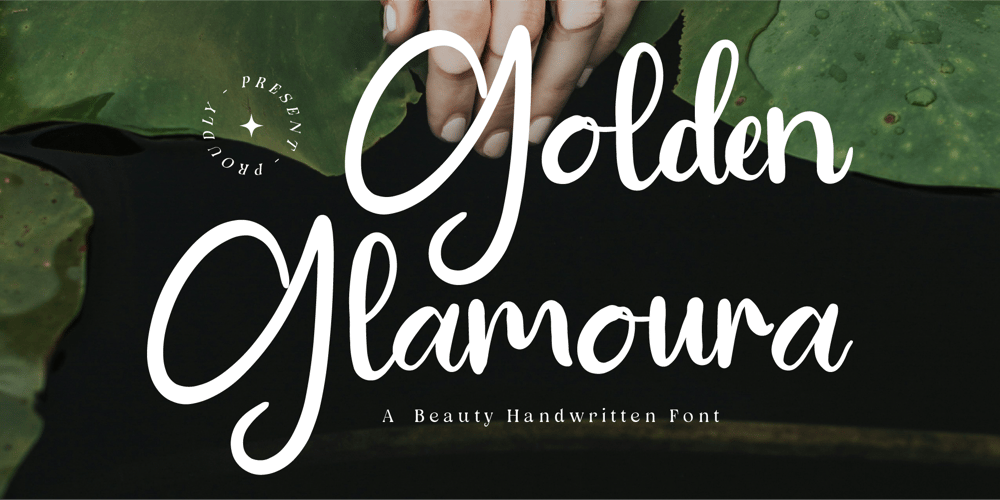
CF Golden Glamoura Font Family was designed by Gilang Mei Nugraha, Frederik Aristaputra and published by Creatifont Studio. CF Golden Glamoura contains 2 styles and family package options. Golden Glamoura โ A Luxurious Beauty Handwritten FontDiscover the grace and refinement of Golden Glamoura, a beauty handwritten font crafted for those who appreciate elegance in every detail. With its flowing curves, sophisticated strokes, and effortless charm, this typeface exudes luxury, making it the perfect choice for high-end branding, beauty and fashion projects, wedding stationery, and upscale product packaging.Designed to be both expressive and versatile, Golden Glamoura strikes a balance between modern chic and timeless elegance. Whether you’re creating logo designs, editorial layouts, or stylish social media content, this font will add a touch of refinement and exclusivity to your visuals.Why Choose Golden Glamoura?๐ซ Elegance in Every Stroke: A graceful script that embodies beauty and sophistication.โจ Perfect for Luxury Branding: Ideal for high-end fashion, beauty, and lifestyle projects.๐ Flawless Flow & Readability: Designed to maintain style without sacrificing clarity.๐ Authentic Handwritten Charm: A natural yet refined handwritten script for exclusive designs.Let Golden Glamoura bring a touch of luxury and sophistication to your projects. Download now and make every word shine with elegance! โจ๐A SUMMARY OF WHAT’S INCLUDED:- Standard Character A-Z, a-z, 0-9, Punctuation & symbols- Regular and Italic- Works on PC & Mac- Simple installation- Accessible in Adobe Creative Suite (Ai, Ps, Id, etc.) even work on Microsoft Word.- PUA Encoded Characters โ Fully accessible without additional design software.๐If you come across any issues or notice anything we might have overlooked while using this product, please feel free to reach out to us. We greatly value your feedback as it helps us enhance and refine our products. Thank you!